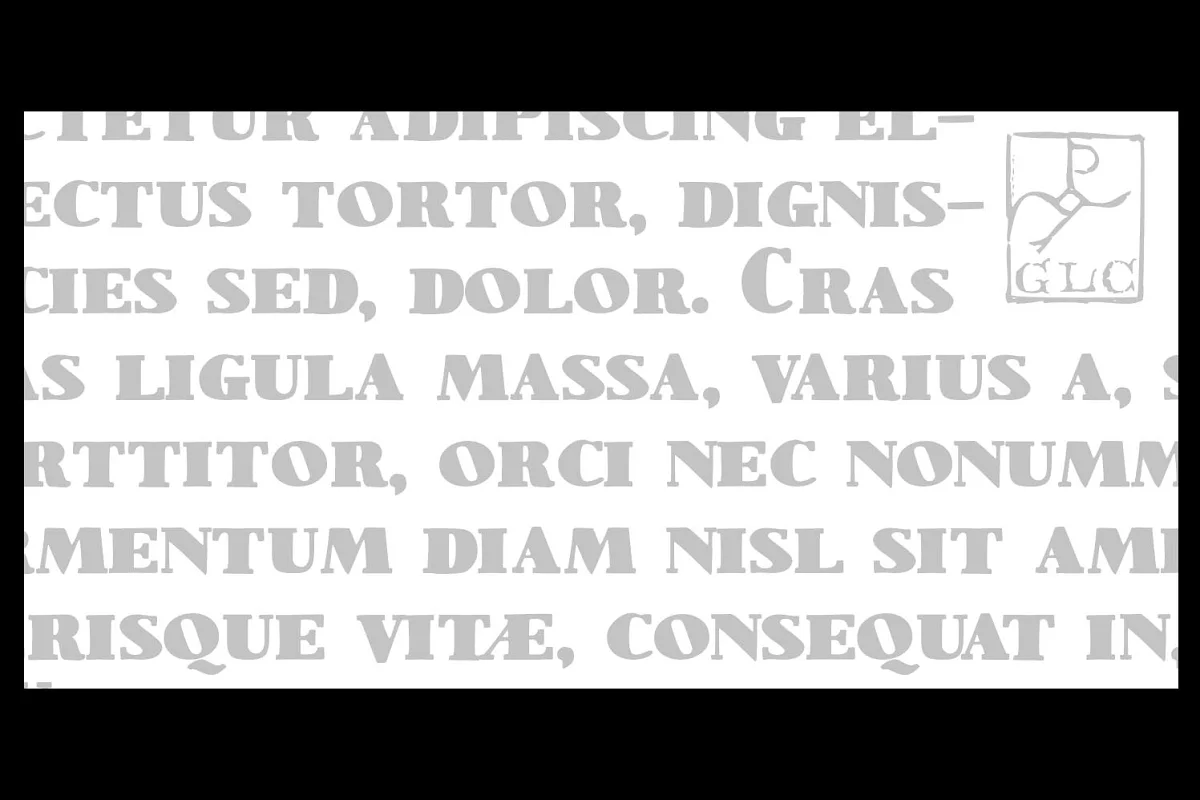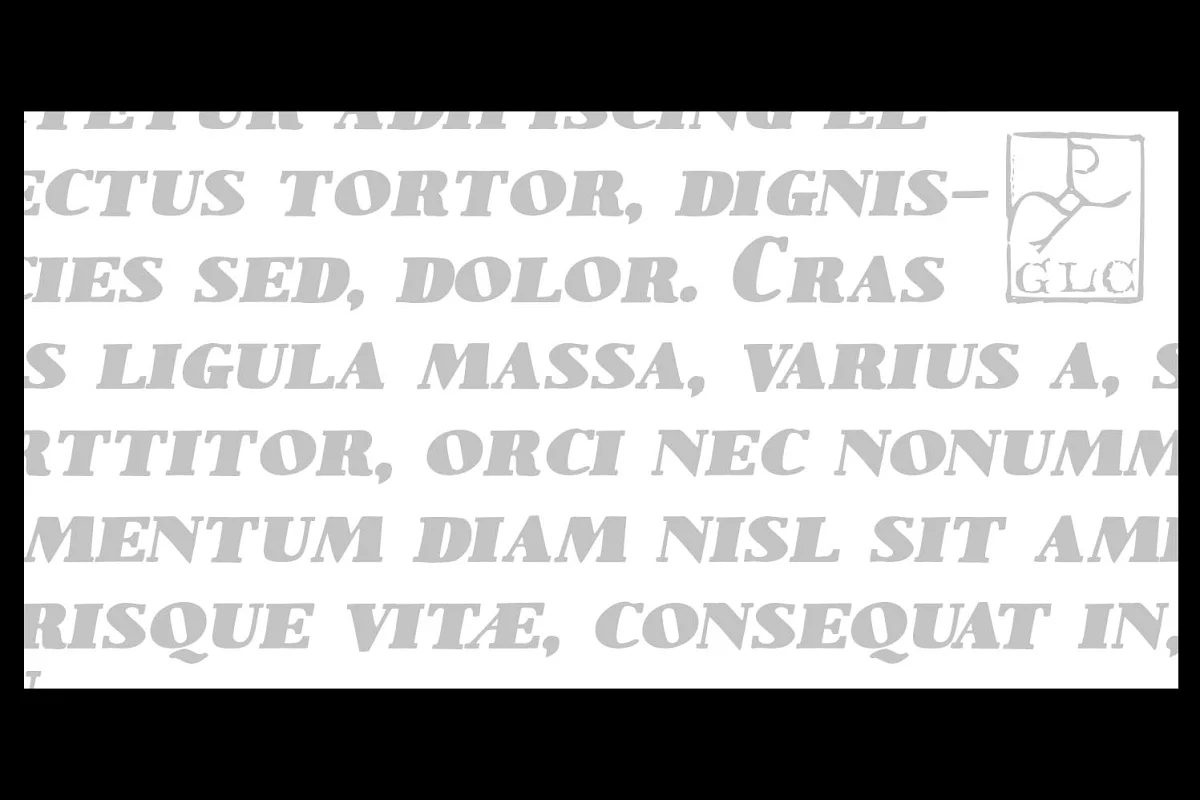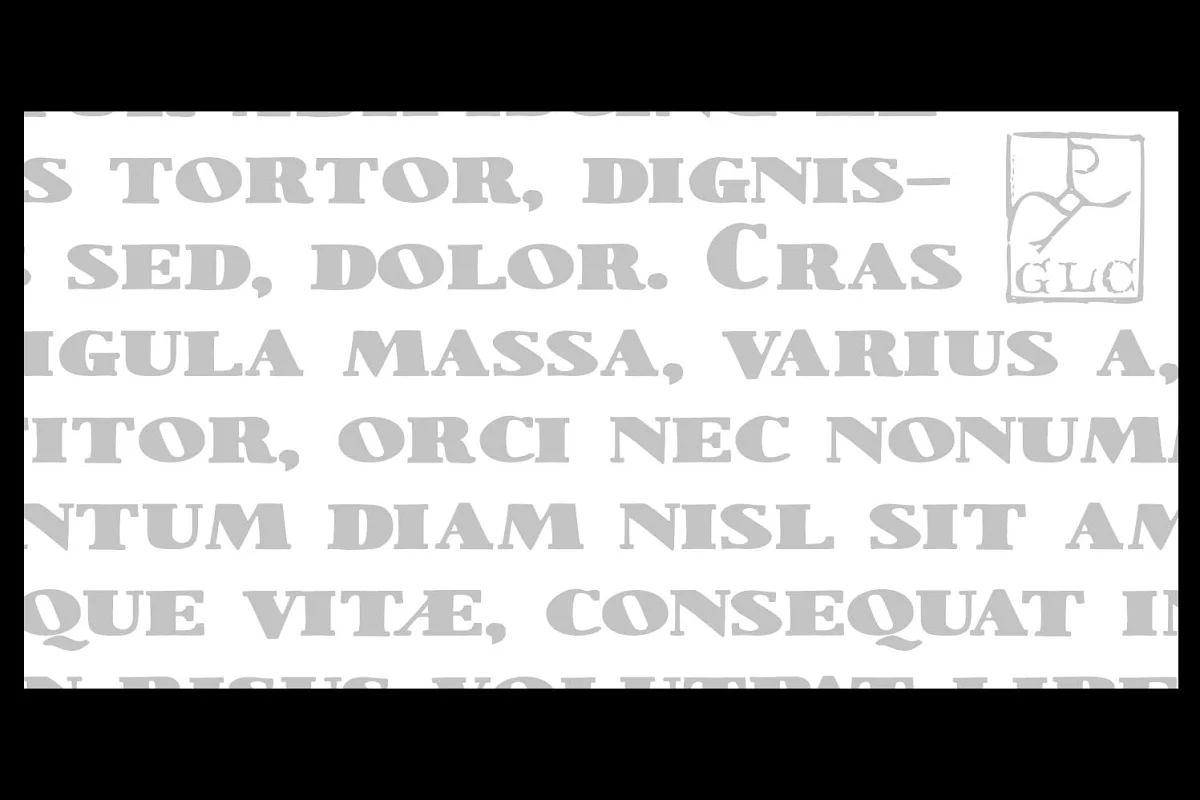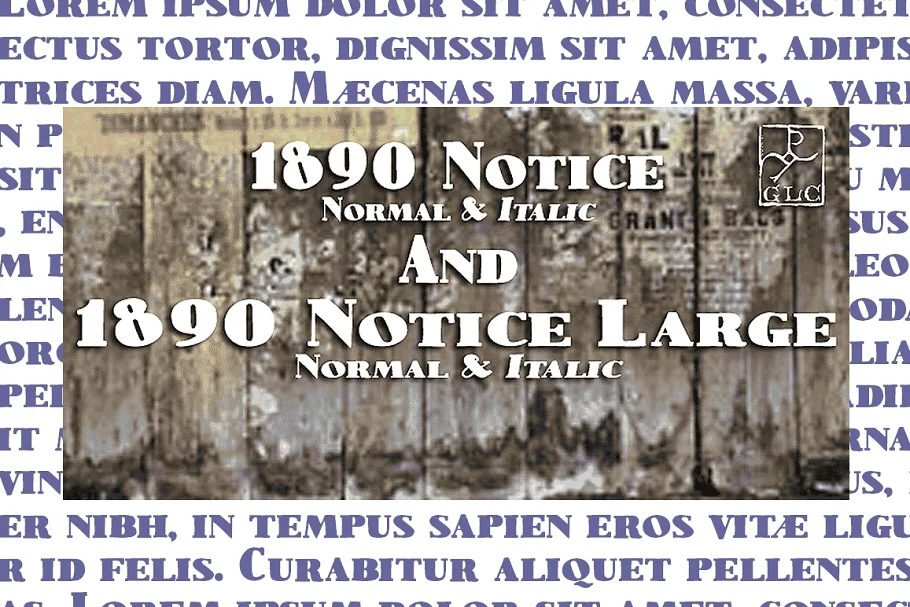
About the 1890 Notice Set OTF Font
We have created this family ( Normal, Italic, Large Normal, Large Italic ) inspired by the hand-drawn letters used from the late 1800’s until the beginning of 1900’s for notices, advertisings, posters but also early comics titles.
It is a handmade font, with little imperfections that give it its special poetic note. It can be used together with our “1906 French News”, “1906 Titrage” and “1820 Modern”.